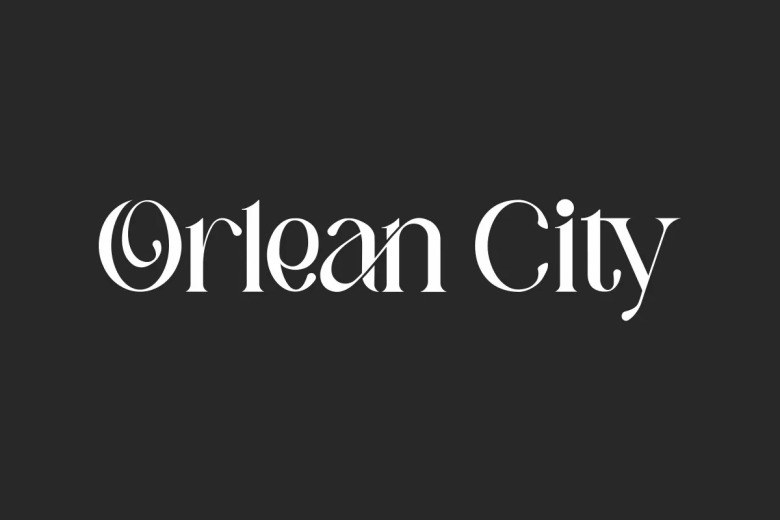
Orlean City Font
Introducing Orlean City Font. Orlean City Font is a serif display font, which was created by Vintype Studio. The characters of this font create a beauty and unique appearance to all your projects that you’ll use it. It’s perfect for fashion, cosmetic, artist, custom design, interior design, publishing, printing, hotel – spa, etc.
Industries! Orlean City Font has a full set of Uppercase Basic Characters – Numerals and Punctuation . It also included Ligature to make it more stunning. Please use it for making your design amazing, like painting, magazine, invitation, business card, product packaging, brand logo, label, poster, web page, quote, etc.
Orlean City Display Font